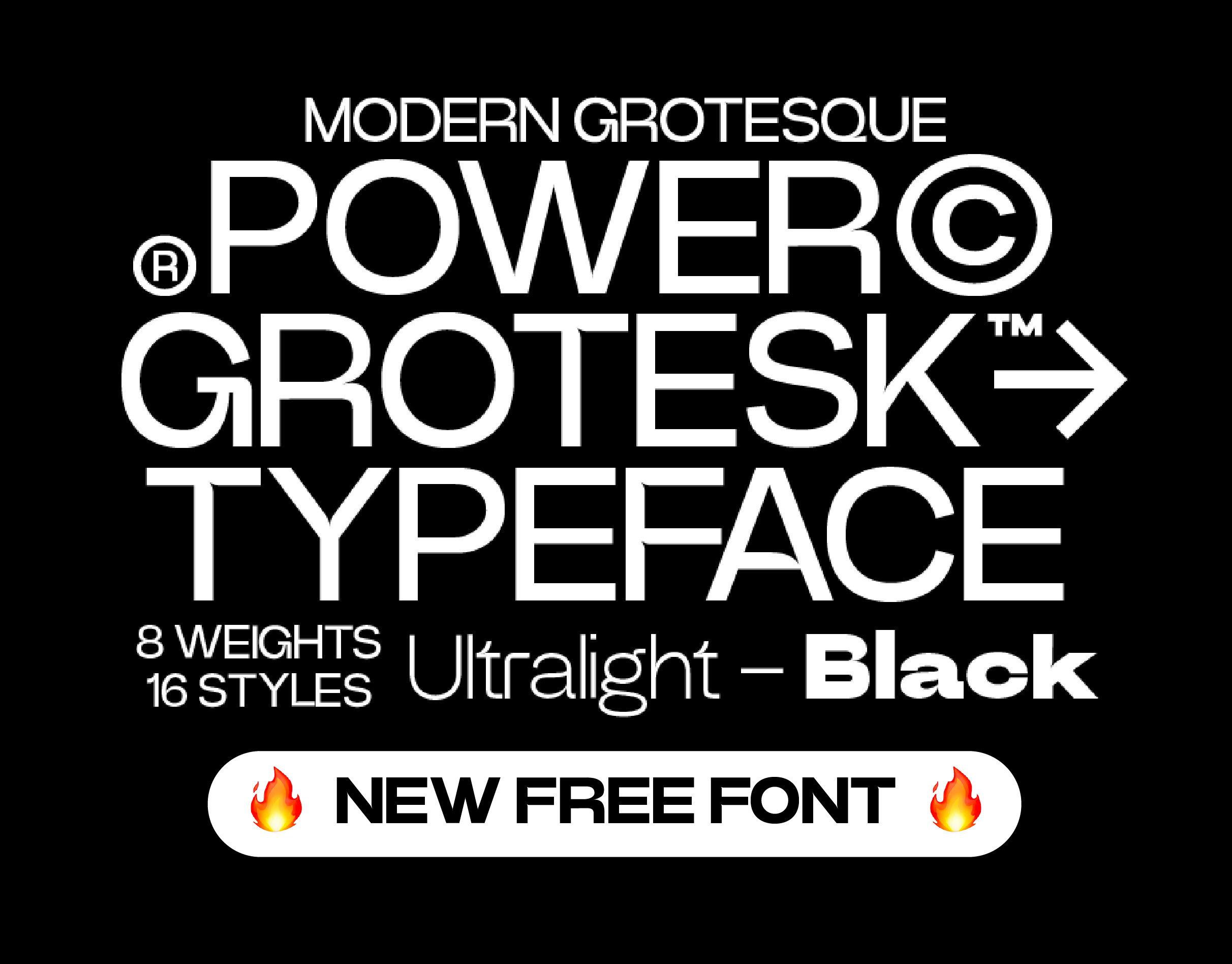
Power Grotesk - Free Font
Power Grotesk now available download for free - Power Grotesk is a sans serif typeface with details that give typography that has its own characteristics from the thinnest to the thickest that is slightly widened